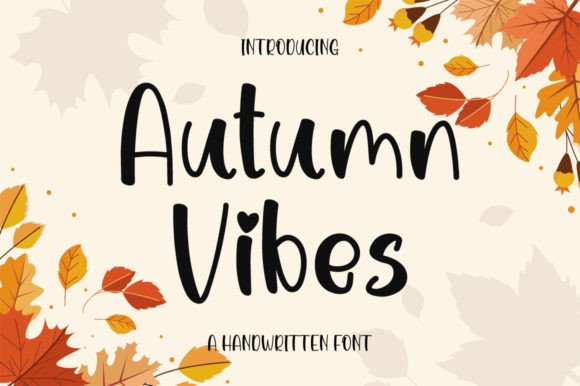
Cozy Up with Autumn Vibes: A Handwritten Font to Warm Your Designs
I’ll never forget the design project that led me to discover Autumn Vibes. I was working on a custom invitation for a friend’s fall wedding, and I was struggling to find the perfect font. The design needed to be warm, inviting, and reflective of the season. That’s when I stumbled upon Autumn Vibes, a fun and smart-looking handwritten font that instantly captured the essence of autumn.
An Honest Review of Autumn Vibes
- ✨ Unique and eye-catching: Autumn Vibes has a distinct personality that sets it apart from more traditional fonts.
- ✅ Highly versatile: This font looks great on invitations, thank you cards, quotes, greeting cards, logos, business cards, and more.
- 💕 Warm and inviting: The handwritten style of Autumn Vibes evokes a sense of coziness and comfort, perfect for autumn-themed designs.
- 🎨 Customizable: With OpenType features and glyphs, you can experiment with different styles and alternates to make your design truly unique.
While Autumn Vibes is an excellent font, there are a few things to keep in mind:
- 🤔 Legibility at small sizes: As with many handwritten fonts, Autumn Vibes can be a bit tricky to read at very small sizes. Make sure to test it at different sizes to ensure it’s legible for your specific design.
- ⚠️ Limited use in formal designs: Due to its playful and informal nature, Autumn Vibes might not be the best fit for very formal or corporate designs.
The Story Behind Autumn Vibes
Autumn Vibes was created by a talented font designer who wanted to capture the warmth and coziness of the autumn season. Inspired by the changing leaves, crisp air, and cozy sweaters, this font is the perfect reflection of the season’s charm.
| Author | Nirmala Creative |
Q: What type of designs is Autumn Vibes best suited for?
A: Autumn Vibes is perfect for designs that need a warm, inviting, and playful touch, such as invitations, thank you cards, quotes, greeting cards, logos, and business cards.
Q: Is Autumn Vibes a difficult font to read?
A: While Autumn Vibes is a handwritten font, it’s generally easy to read. However, as with any font, it’s essential to test it at different sizes to ensure it’s legible for your specific design.